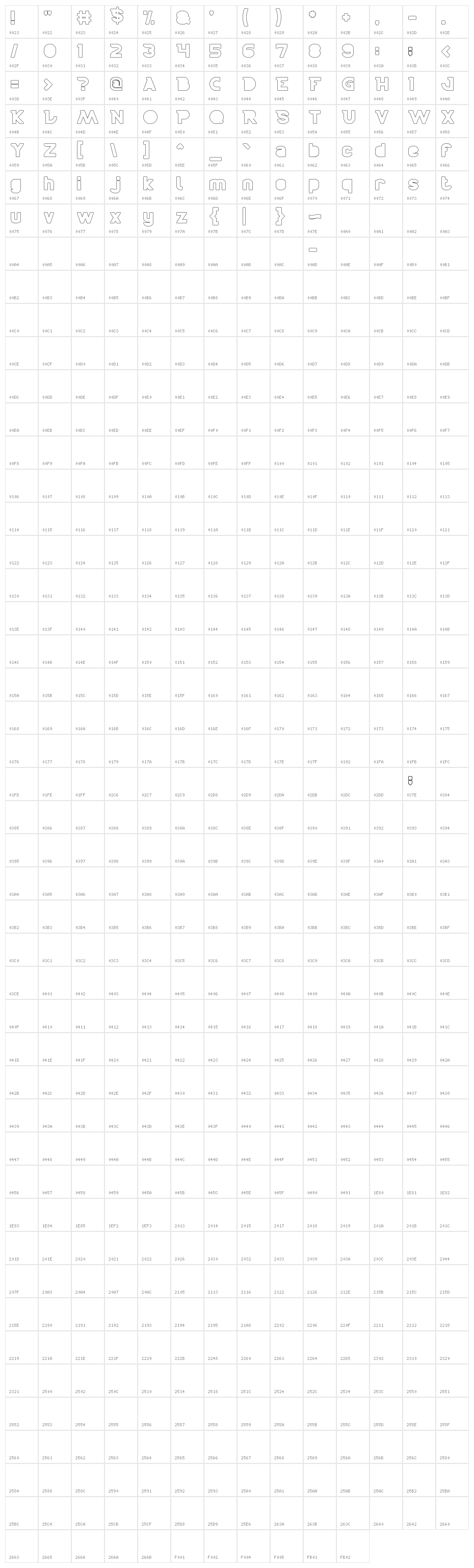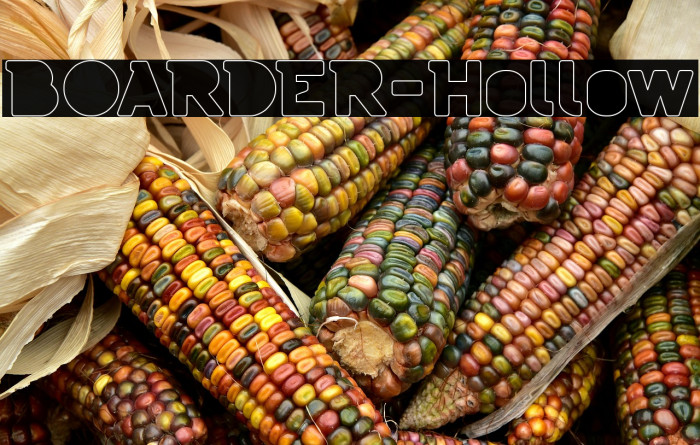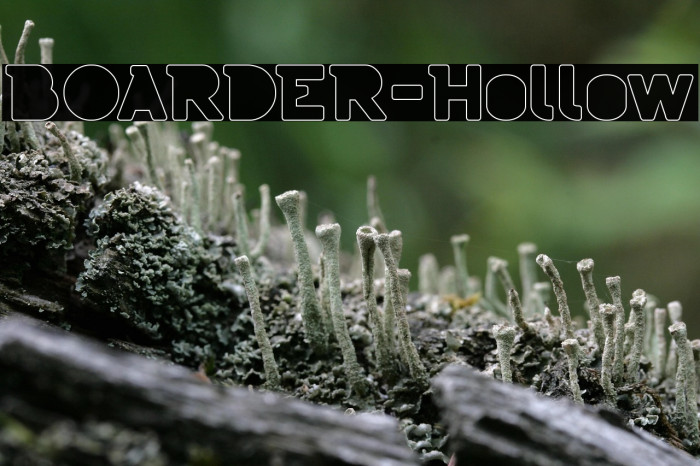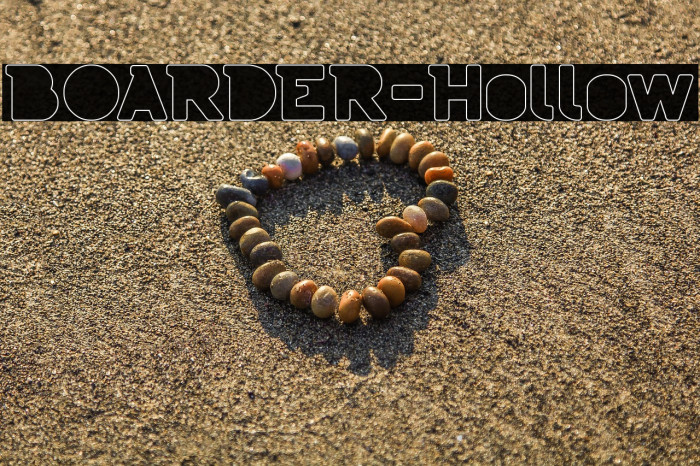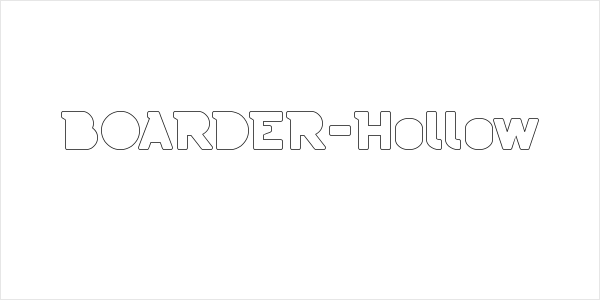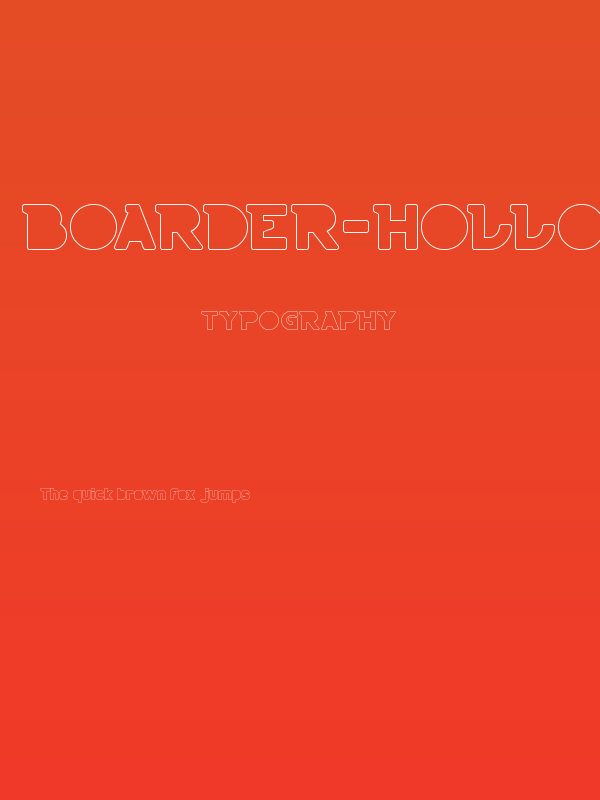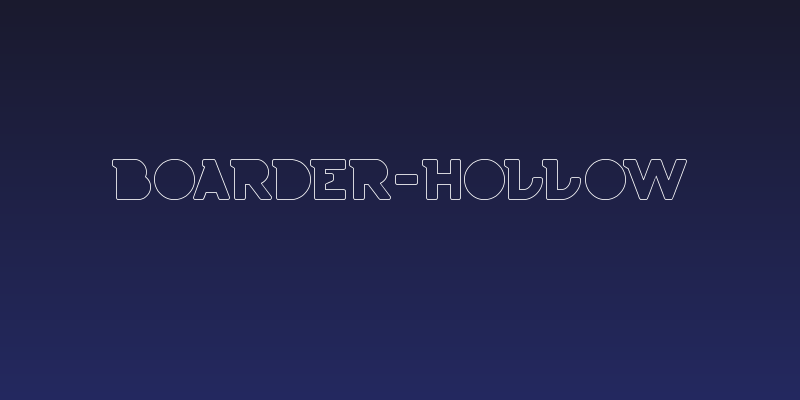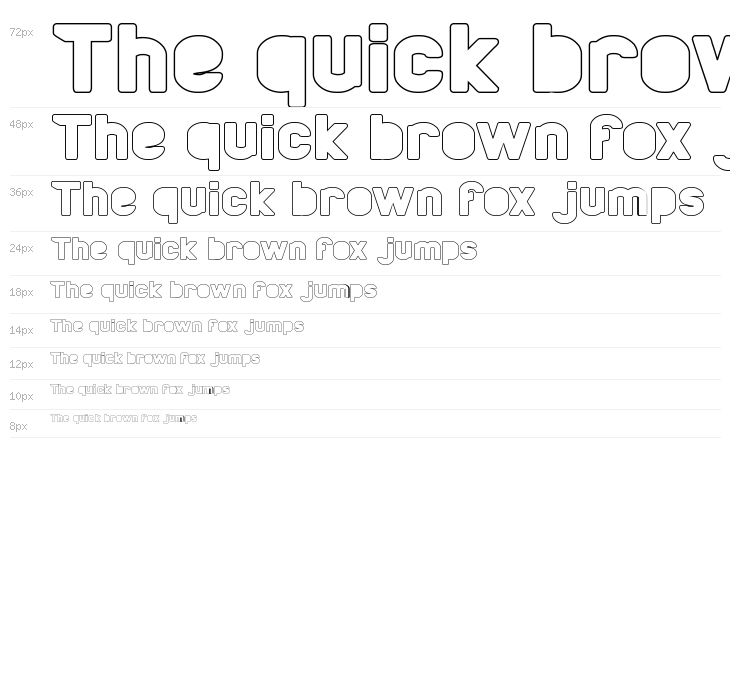
BOARDER-Hollow Font
BOARDER-Hollow Description
This font features a bold, hollow design with a modern and playful aesthetic. Each character is outlined, creating a striking visual effect that stands out on any background. The uppercase and lowercase letters maintain a consistent style, with rounded edges and a uniform thickness that adds to its approachable and friendly appearance. The numbers and special characters are designed to match the overall look, ensuring a cohesive appearance across all text. This font's unique hollow design makes it ideal for projects that require a bold statement without overwhelming the viewer.